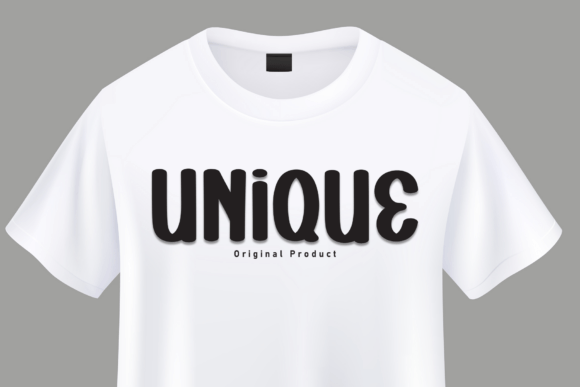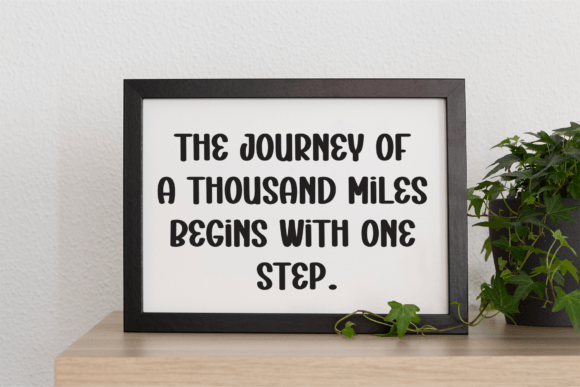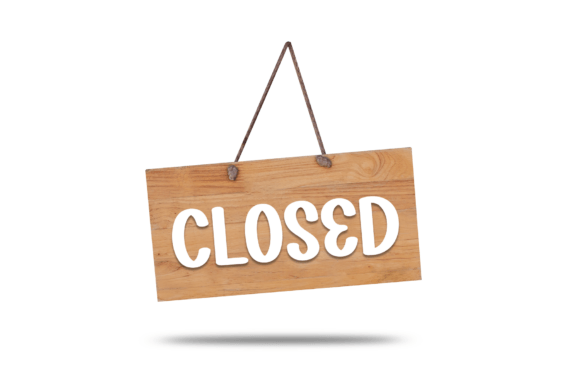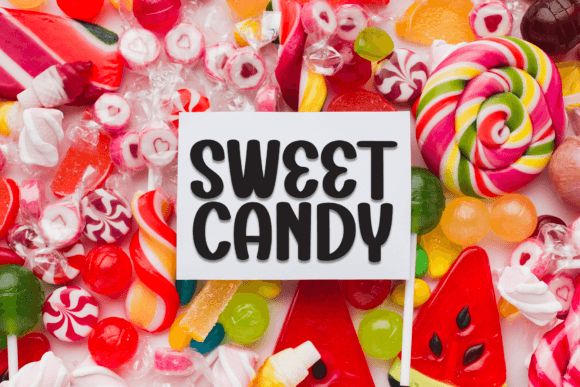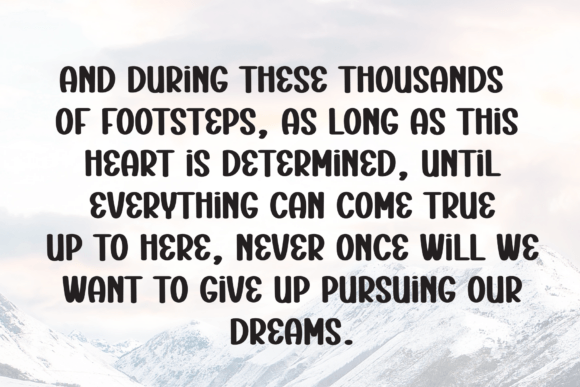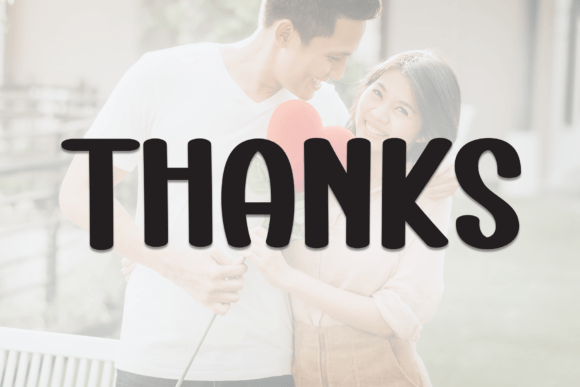
Introducing Happy Romantic Font: The Perfect Addition to Your Design Arsenal
Are you a designer or crafter looking for a font that can add a touch of whimsy and romance to your creations? Look no further than Happy Romantic Font, a charmingly pleasant and personable handwritten display font that’s sure to delight. With its appealing allure and joyous vibe, this font is perfect for wedding invitations, keepsake cards, and any creative design that yearns for a dose of delightful whimsy.
The Sweetness of Handwritten Notes Meets Lyrical Expressiveness
Happy Romantic Font marries the sweetness of a handwritten note with the uniqueness of a lyrically expressive design. This font is designed to evoke the feeling of a personal, handwritten message, while also providing a level of sophistication and elegance that’s perfect for special occasions. Whether you’re creating wedding invitations, anniversary cards, or simply want to add a touch of romance to your designs, Happy Romantic Font is the perfect choice.
What Sets Happy Romantic Font Apart
So, what sets Happy Romantic Font apart from other fonts on the market? Here are just a few key features that make it a standout:
- Handwritten charm: Happy Romantic Font has a distinctly handwritten feel that’s perfect for adding a personal touch to your designs.
- Lyrical expressiveness: The font’s unique design ensures that your text will have a lyrical, poetic feel that’s perfect for special occasions.
- Delightful whimsy: Happy Romantic Font has a playful, whimsical vibe that’s sure to add a touch of fun and personality to your designs.
- Elegant sophistication: Despite its playful nature, Happy Romantic Font is also elegant and sophisticated, making it perfect for formal occasions.
Happy Romantic Font is perfect for designers and crafters who want to add a touch of romance and whimsy to their creations. Whether you’re creating:
- Wedding invitations: Happy Romantic Font is the perfect choice for wedding invitations, with its elegant sophistication and playful whimsy.
- Anniversary cards: Add a touch of romance to your anniversary cards with Happy Romantic Font.
- Keepsake cards: Create beautiful, one-of-a-kind keepsake cards with Happy Romantic Font.
- Creative designs: Happy Romantic Font is perfect for adding a touch of personality and whimsy to any creative design.
In conclusion, Happy Romantic Font is a charmingly pleasant and personable handwritten display font that’s perfect for designers and crafters who want to add a touch of romance and whimsy to their creations. With its appealing allure and joyous vibe, this font is sure to delight. Whether you’re creating wedding invitations, keepsake cards, or simply want to add a touch of personality to your designs, Happy Romantic Font is the perfect choice.